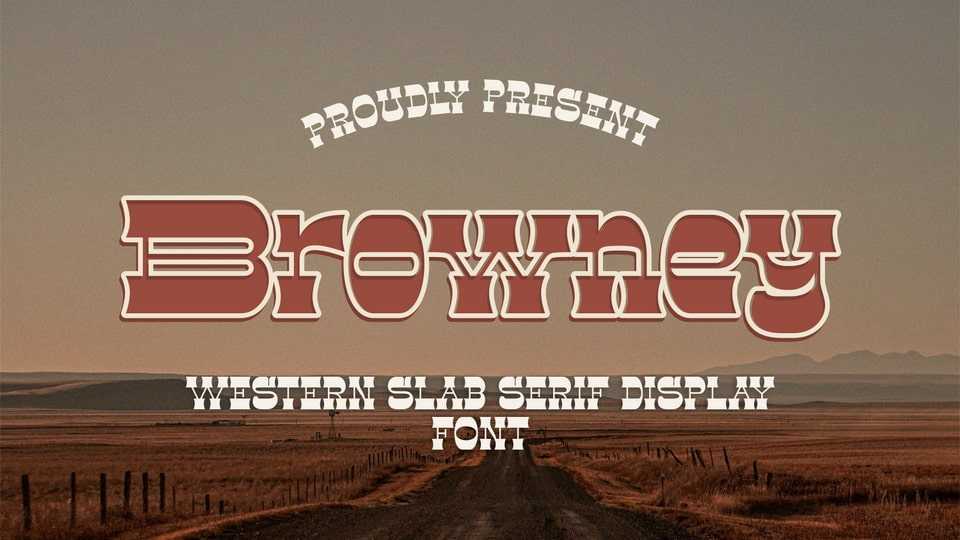
Download Browney font, an attractive western slab serif typeface that’s perfect for adding a touch of rustic charm to your designs.
Designer: GraphicSauce.co